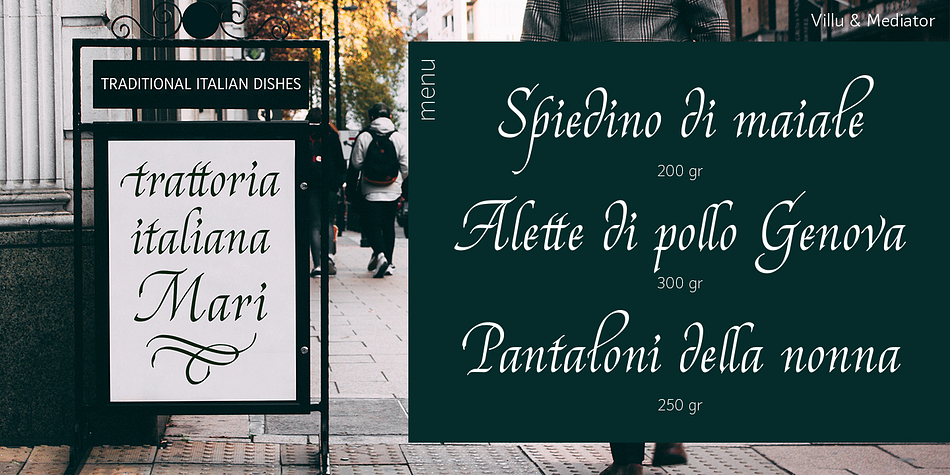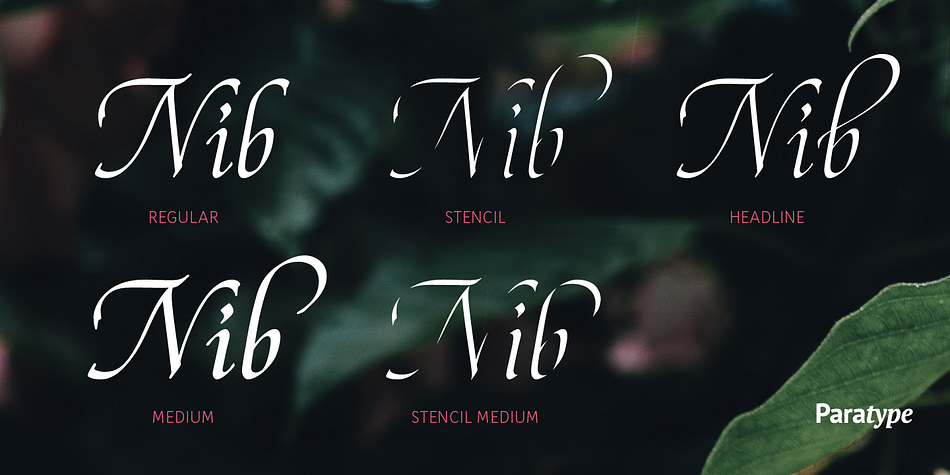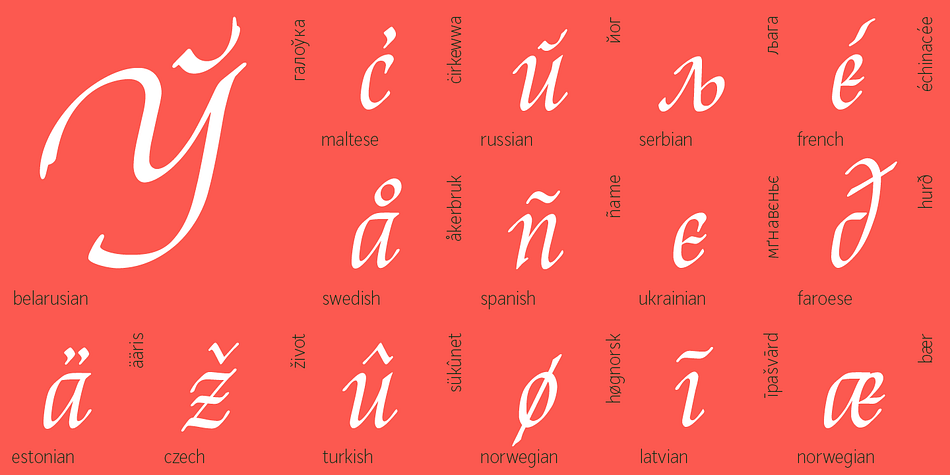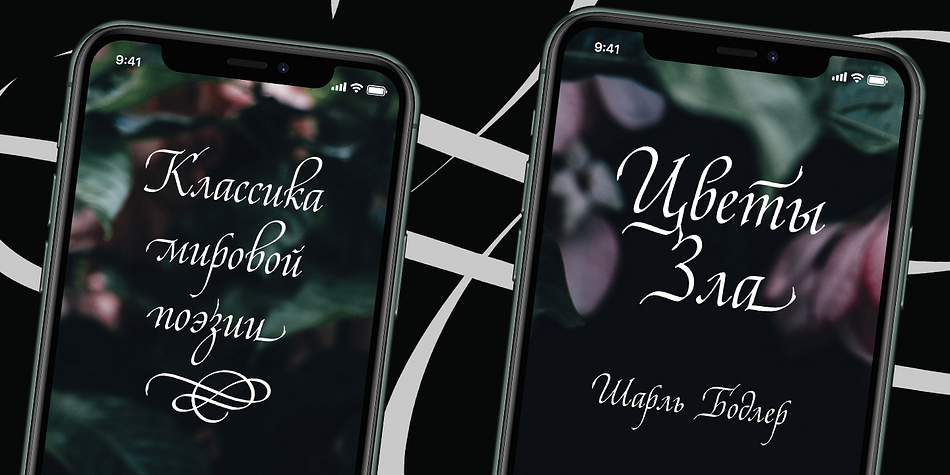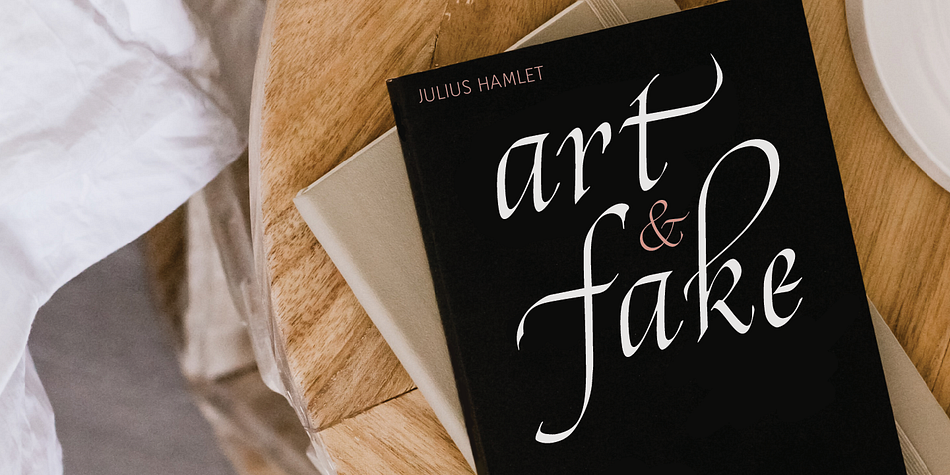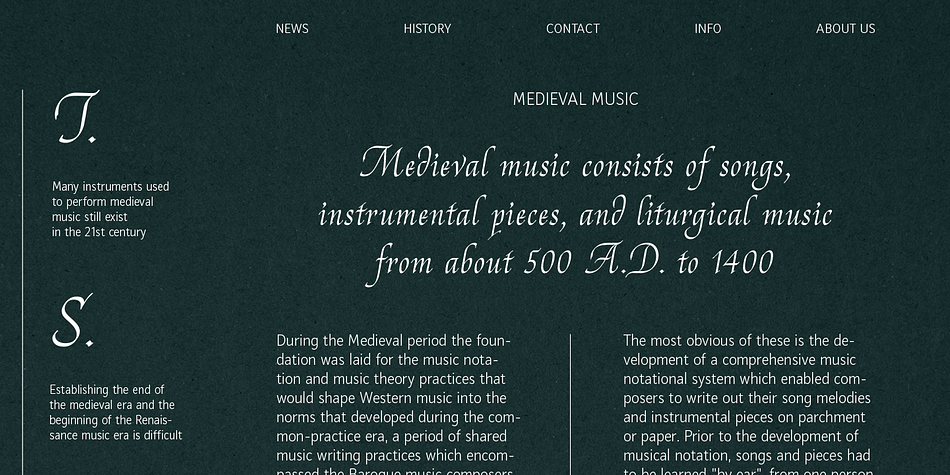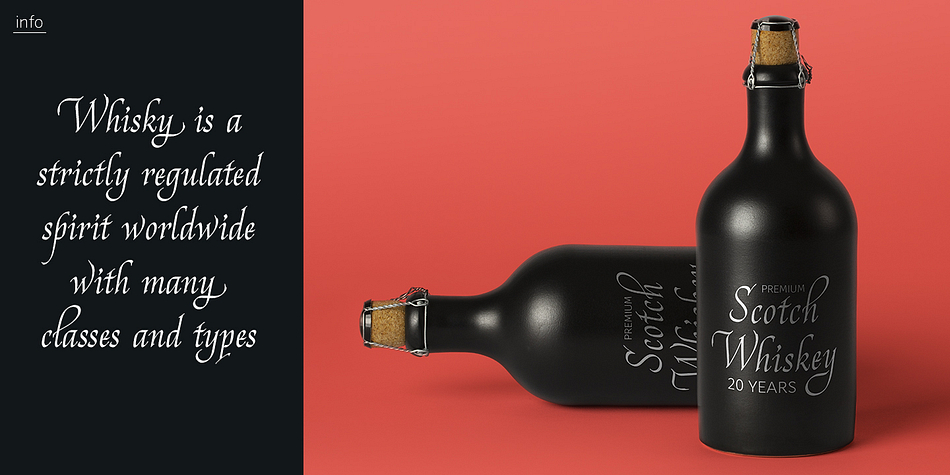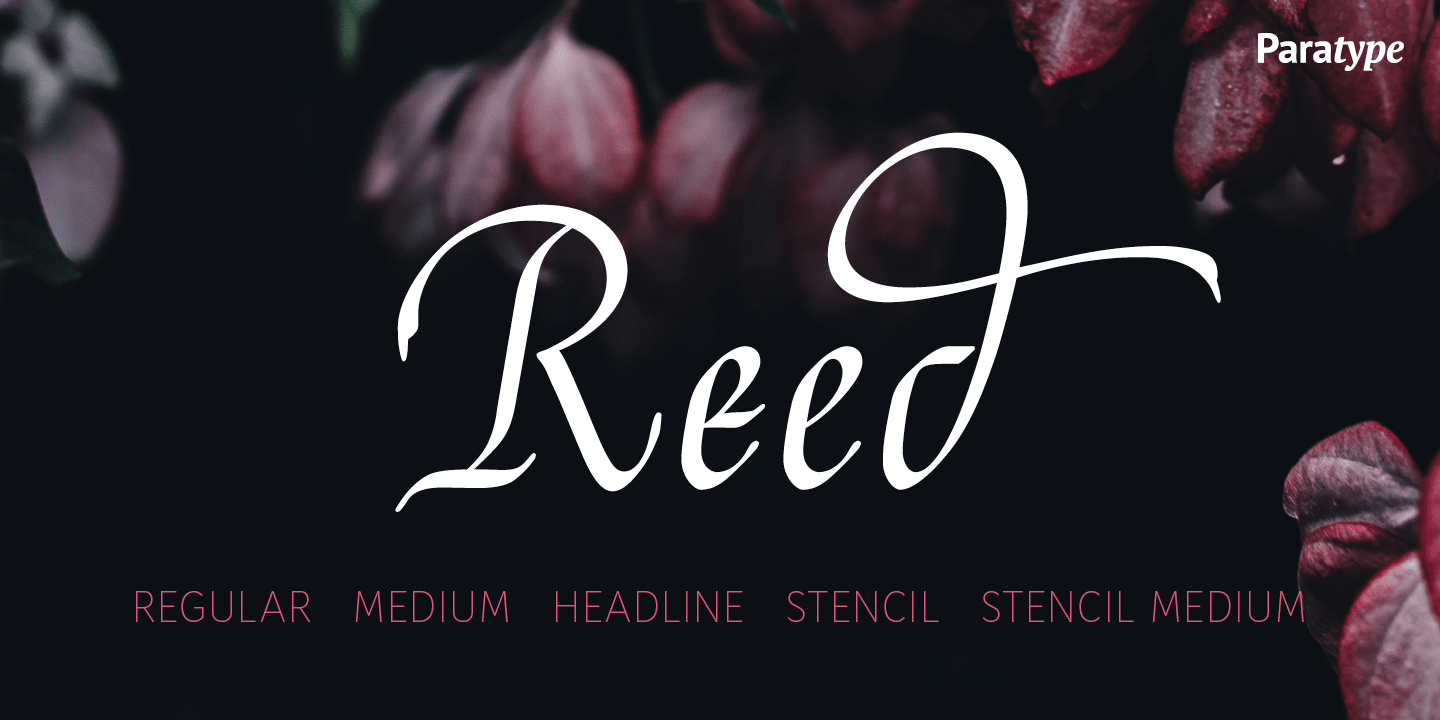
Reed
Designed by Isabella Chaeva, Reed is a multiple classification font family. This typeface has five styles and was published by ParaType.
Reed is a refined calligraphic font based on humanist italic. It contains two weights and a high-contrast Display style for extra large point sizes. Two unusual stencil styles add zest to the type family. The character set includes lots of swashes and contextual alternates. This makes text set in Reed look very close to live calligraphy. Reed works perfectly in labels and packaging of confectionery, cosmetics, perfumery and sparkling wines, as well as greeting cards and event design. Reed was designed by Isabella Chaeva.